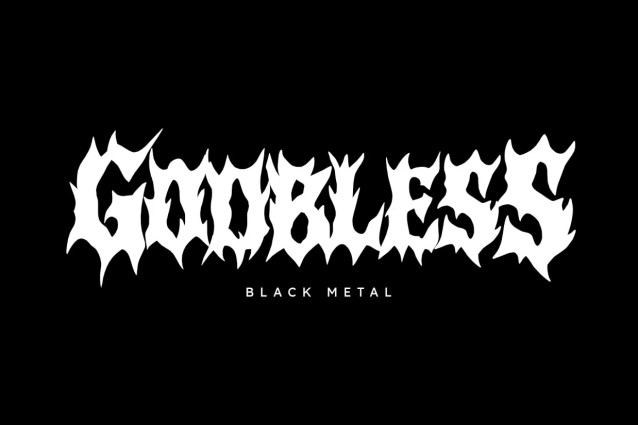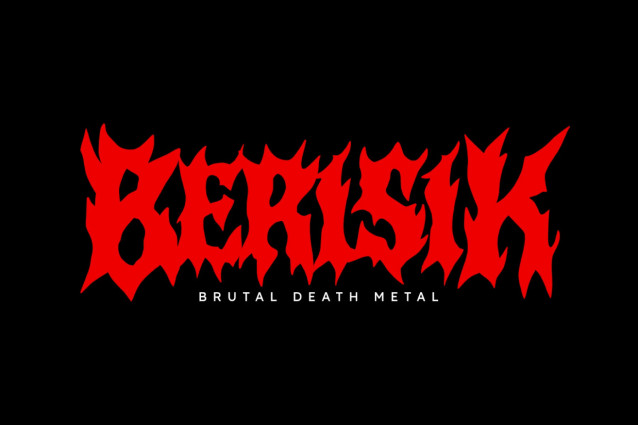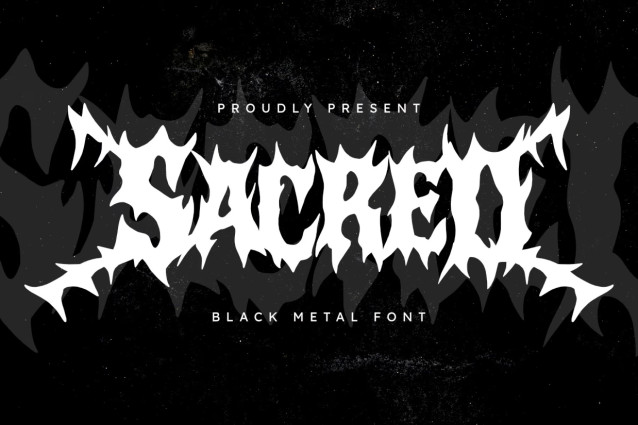
Sacred Black Metal Font
Sacred Black Metal Font is a raw and wickedly sharp black metal font inspired by extreme underground music culture. With its aggressively spiked characters and brutal strokes, this font perfectly captures the dark, chaotic energy of black metal, death metal, and horror visuals.